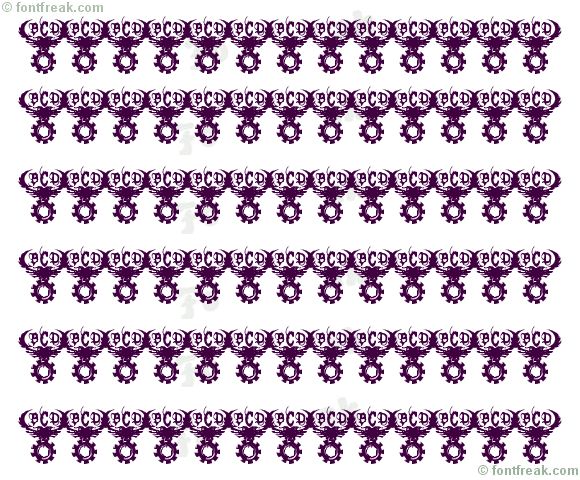
TEK HED AGGRESIVE
Tek Hed Regular
TEK HED ANGRY
TEK HED BOLIMIC
About Ted Hed
The Ted Hed font by Bolt Cutter Design is an aggressive and expressive display typeface that captures attention with its unique visual style. Designed in the late 1990s and refined through the early 2000s, this freeware font stands out with its bold, heavy strokes and a distinctive, almost chaotic aesthetic. The characters exhibit a strong contrast in stroke weight, contributing to a dynamic appearance that is both playful and assertive. The letterforms are spaced tightly, enhancing the sense of urgency and energy that the font conveys, while the irregularities in design add a touch of rebellious character.
Ideal for a variety of creative projects, the Ted Hed font is particularly suited for eye-catching movie posters, where the font's aggressive style can evoke a sense of action or drama. It also works well in branding for edgy cafes or restaurants, helping to establish a vibrant and unconventional atmosphere. Additionally, graphic designers may find this font perfect for creating impactful event flyers or music album covers, where an energetic vibe is essential. Content creators looking to add a bold statement to their social media graphics or merchandise will also appreciate the unique flair that Ted Hed brings.